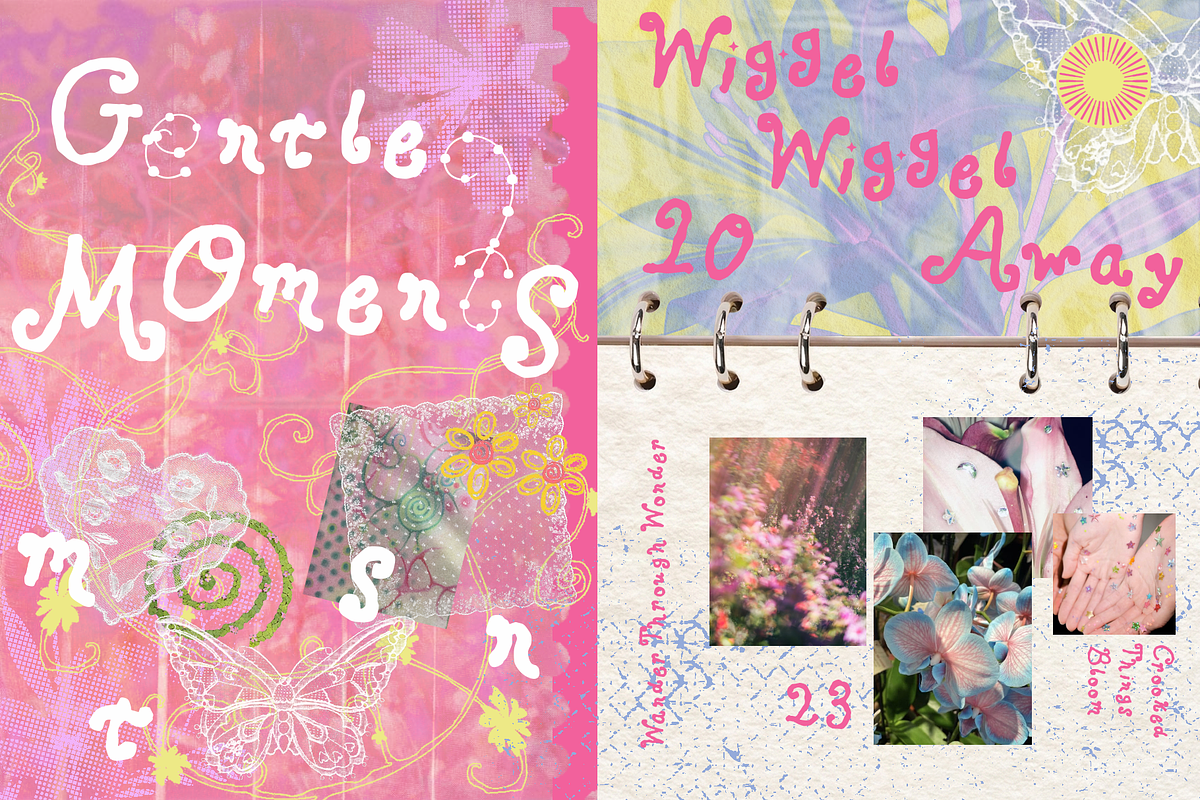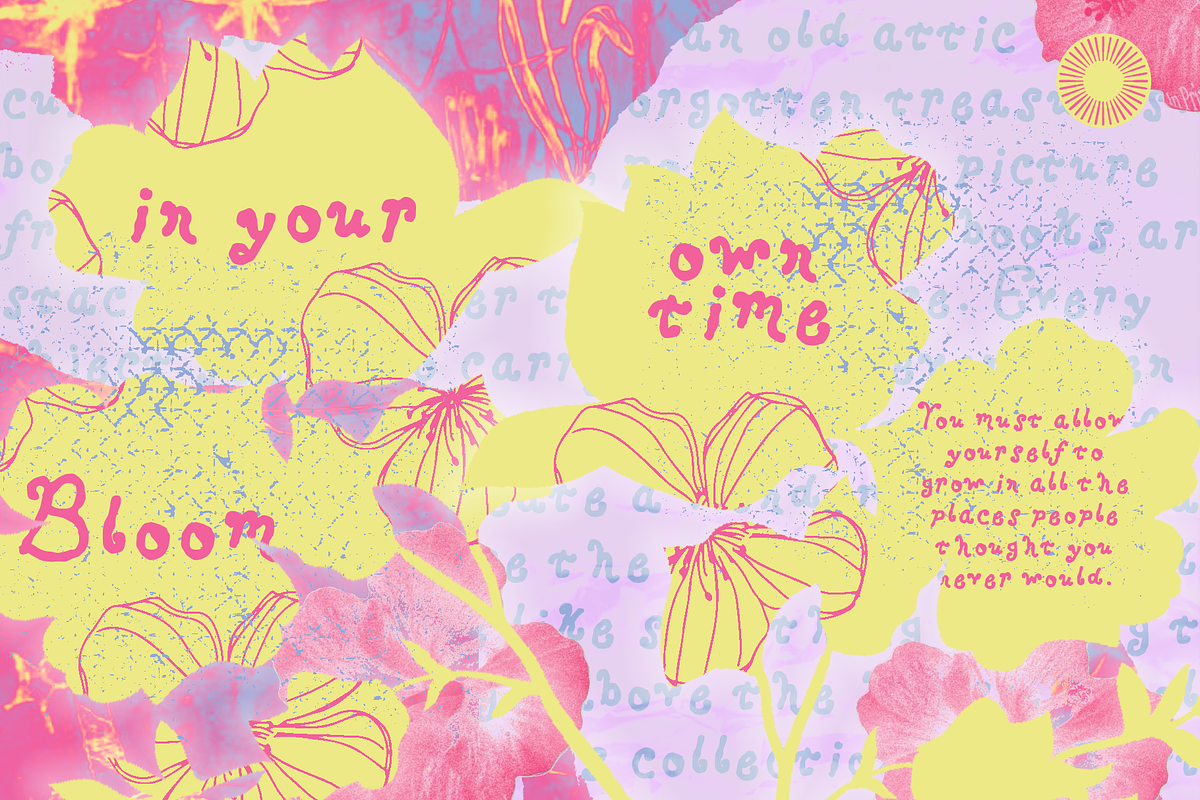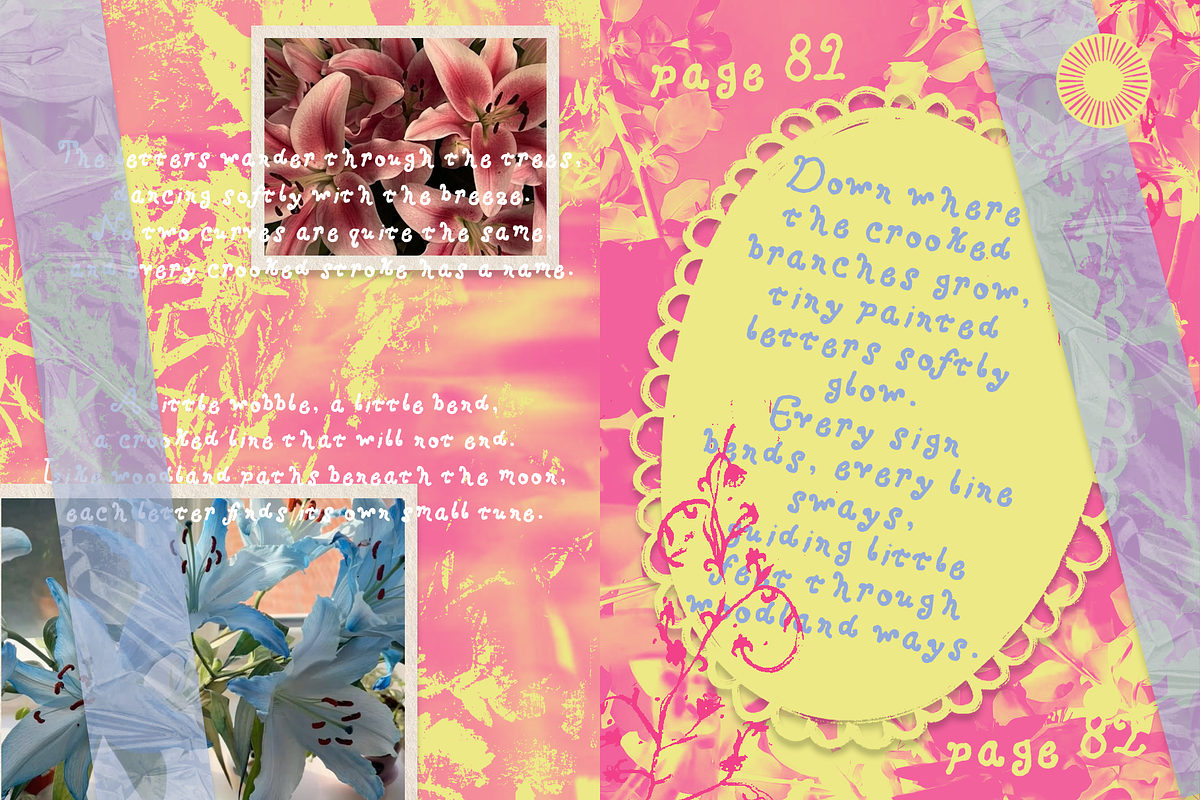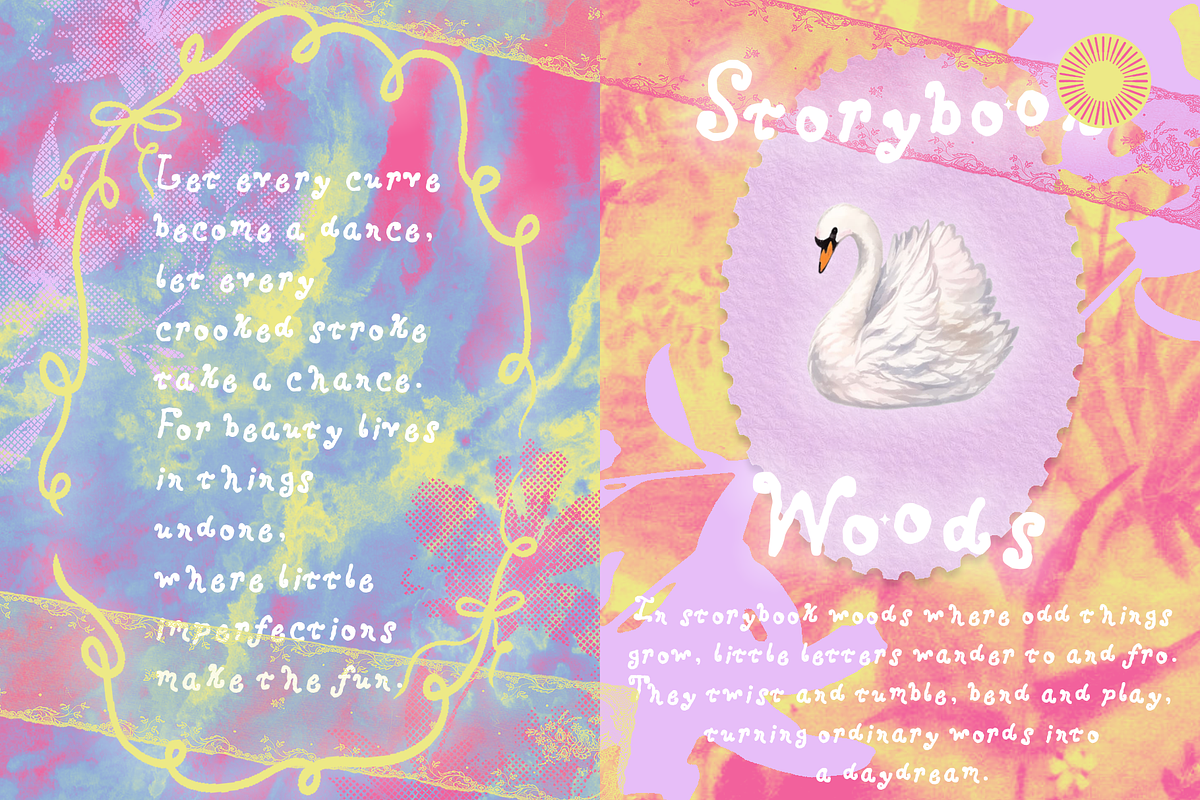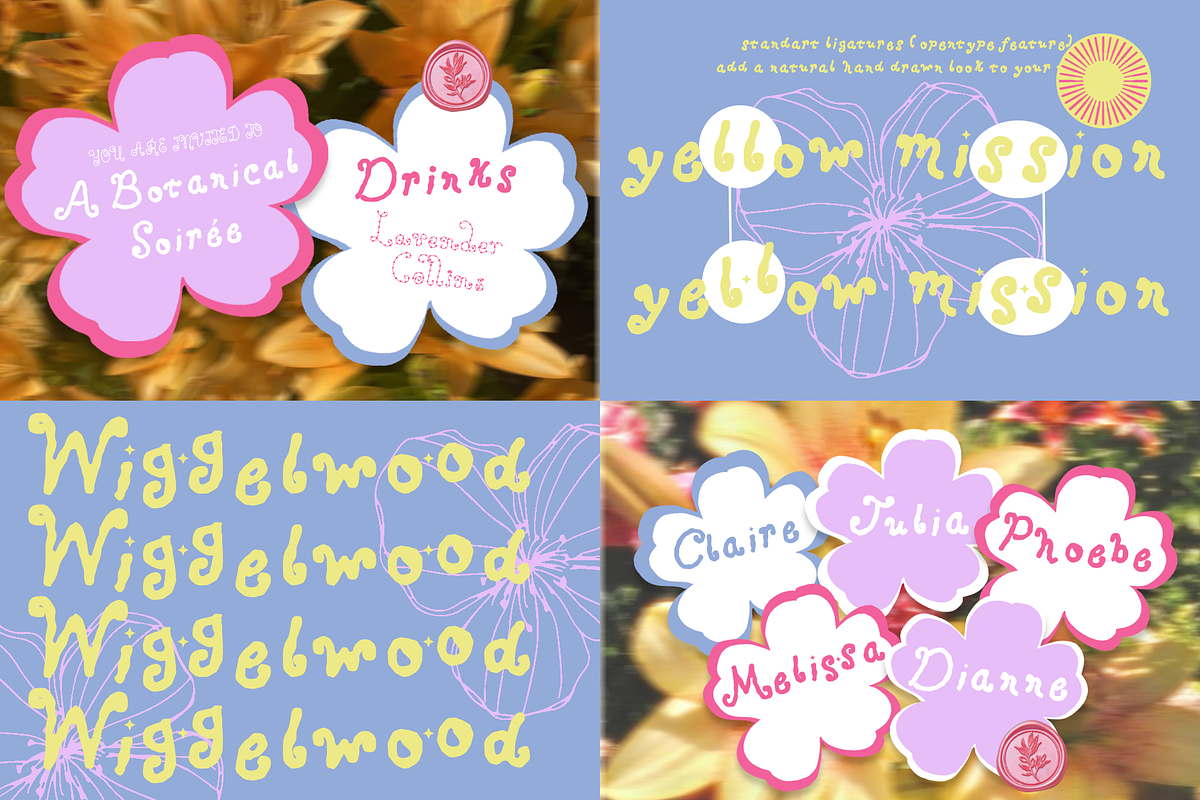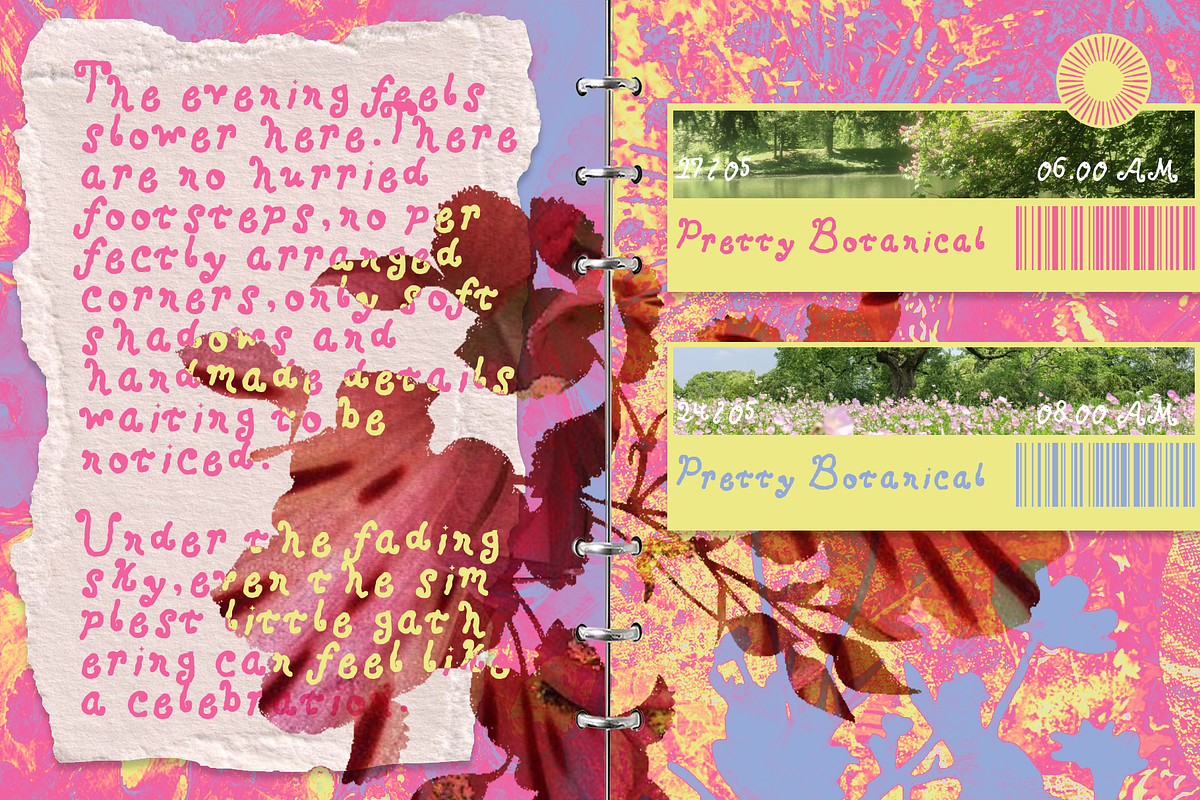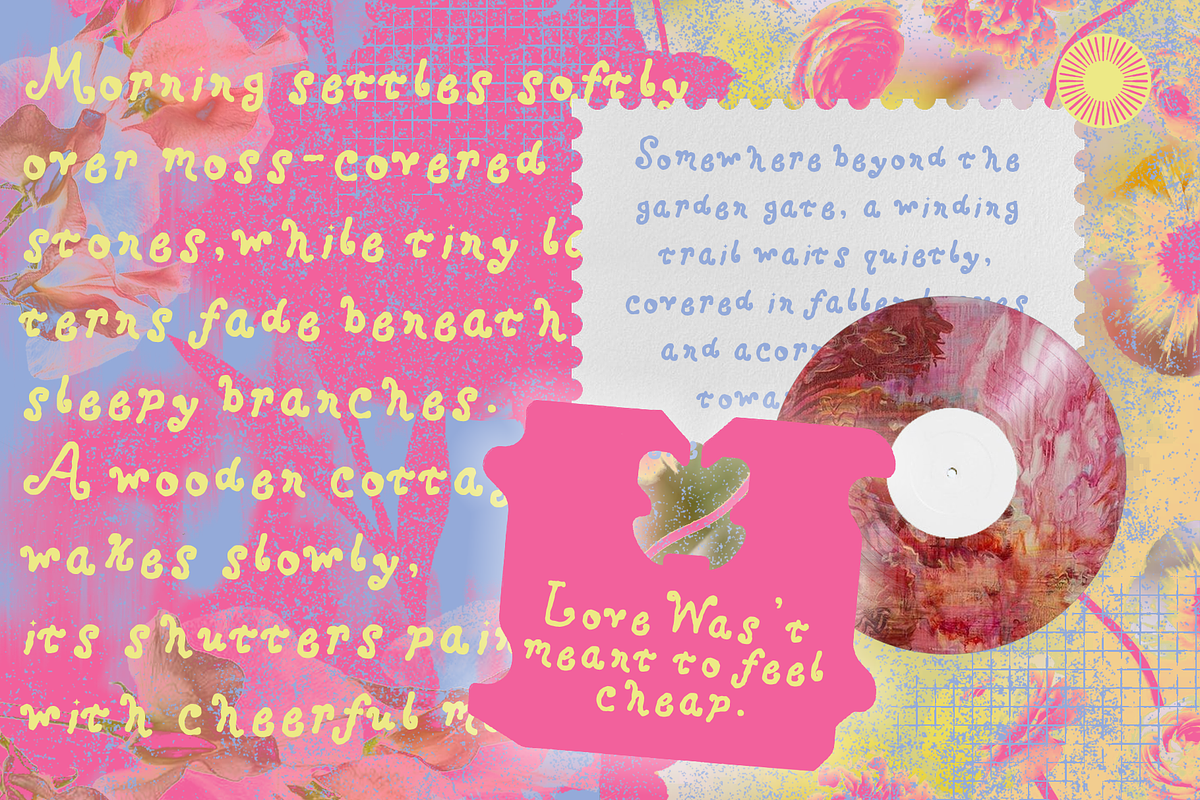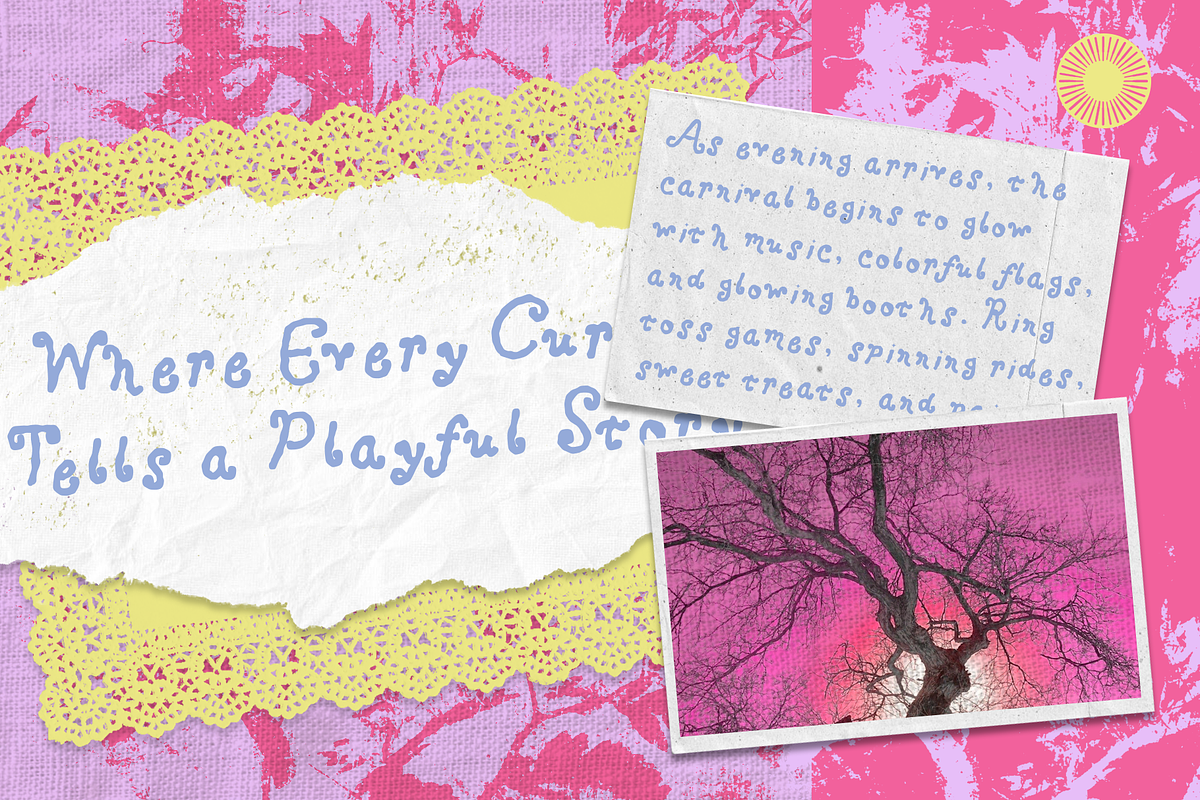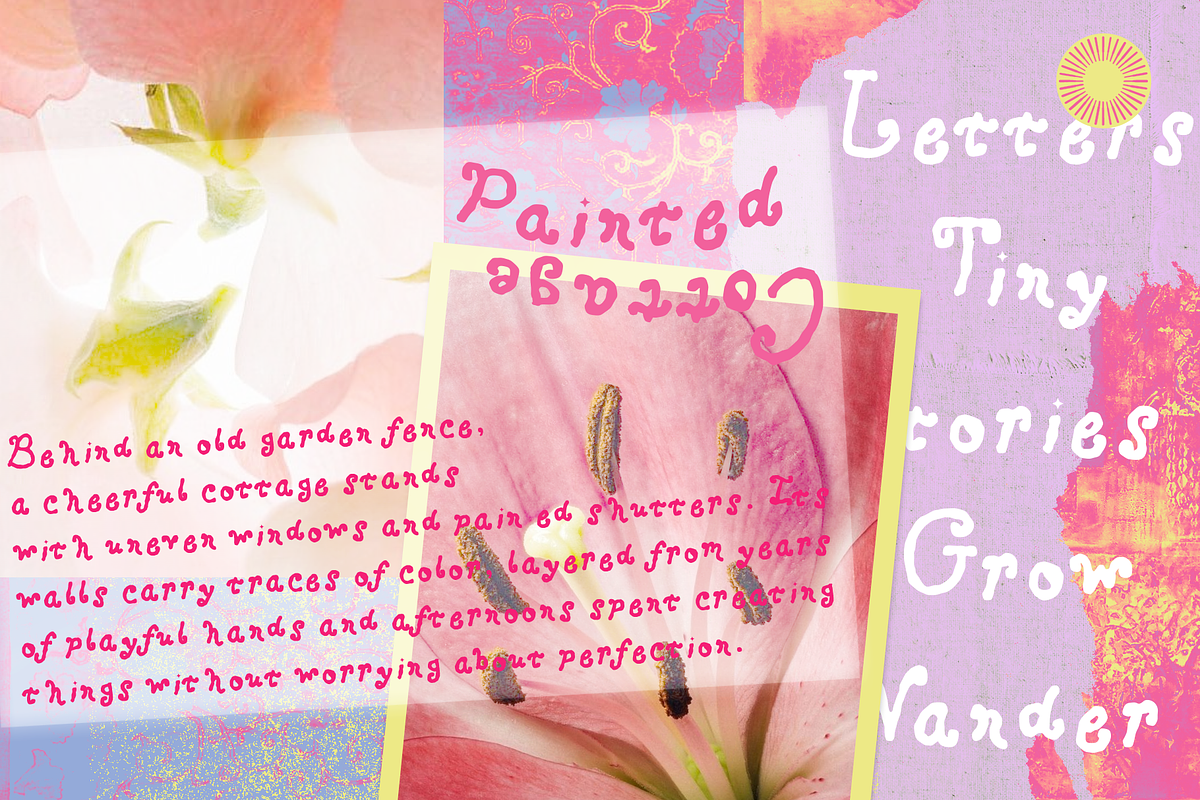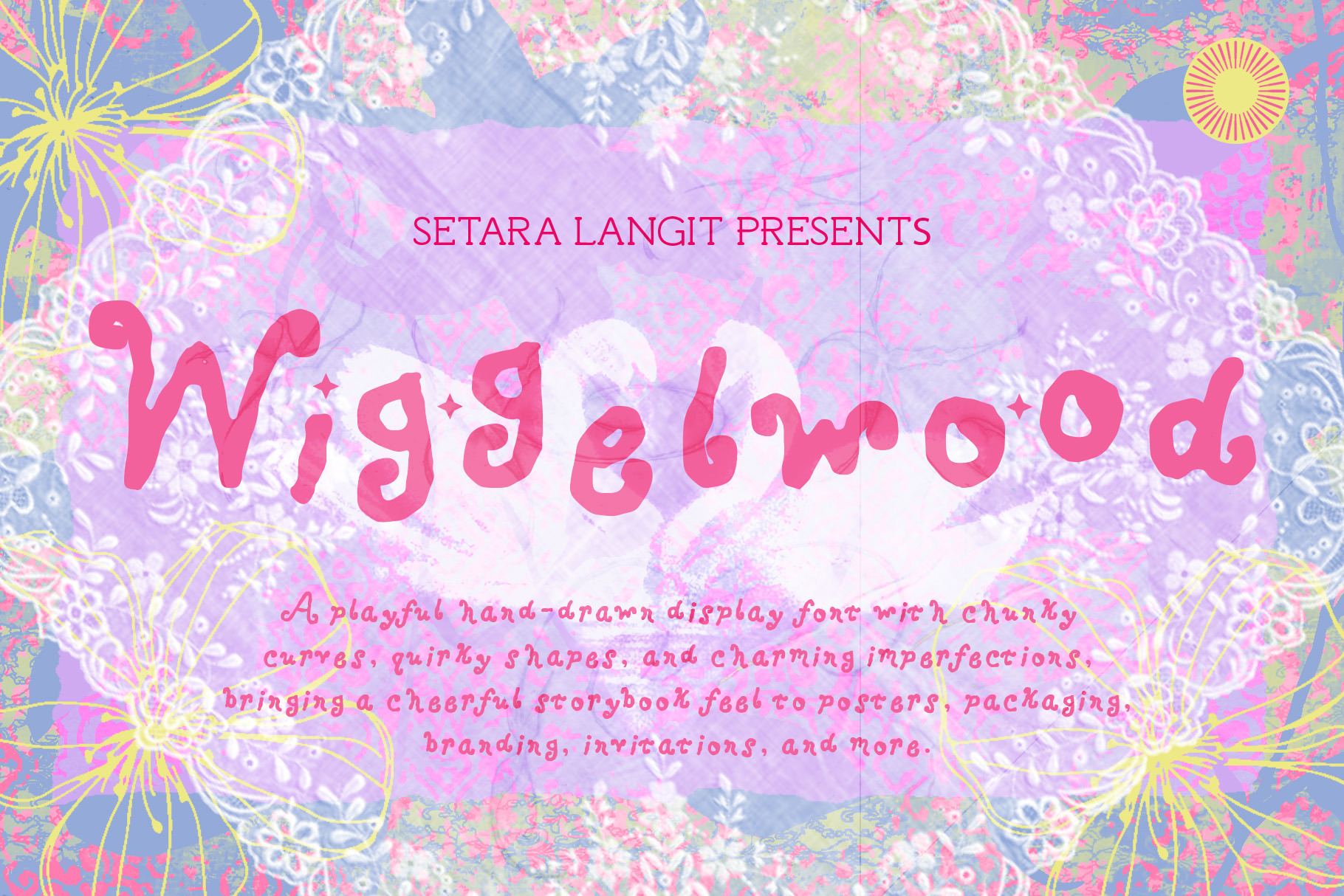
Wigglewood - Playful Display Font
Wigglewood – Playful Hand-Drawn Display Font
Wigglewood is a playful hand-drawn display font full of quirky curves, wiggly letterforms, charming imperfections, and cheerful personality.
Inspired by the carefree feeling of children's drawings, colorful storybooks, and handmade lettering, Wigglewood embraces imperfection as part of its character. Its irregular shapes and playful rhythm give every word a lively, expressive feel that can instantly make a design more fun.
Wigglewood is made for designers who want typography that feels friendly, spontaneous, imaginative, and full of personality. Use it for bold headlines, playful logos, packaging, posters, invitations, stickers, children's projects, and colorful branding.
Best For
Kids Branding
Children's Books
Toy Branding
Stationery
Stickers
Packaging
Posters
Greeting Cards
Birthday Invitations
Party Invitations
Playful Logos
Café & Bakery Branding
Creative Branding
Editorial Design
Educational Projects